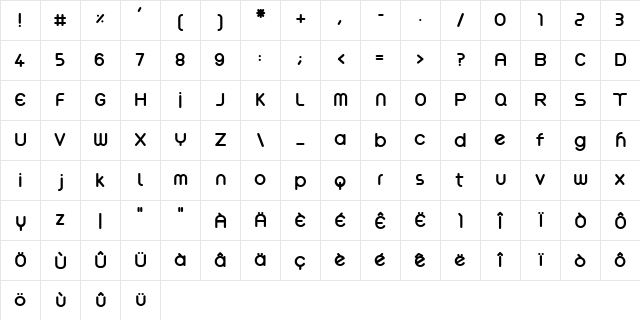
cjust Medium
Design Context for cjust Typeface
cjust is a composed and adaptable typeface that performs quietly and consistently across a wide range of design contexts.